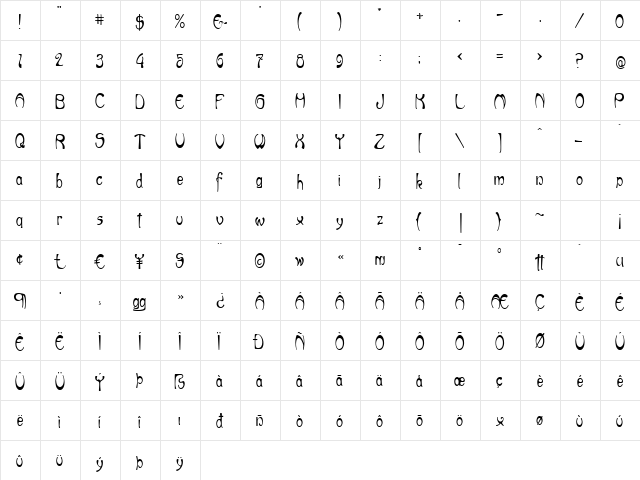
P22 Art Nouveau Cafe Regular
| Foundry | P22 type foundry |
| Designer | Christina Torre |
Design Context for P22 Art Nouveau Cafe Typeface
P22 Art Nouveau Cafe is a composed and adaptable typeface that performs quietly and consistently across a wide range of design contexts.